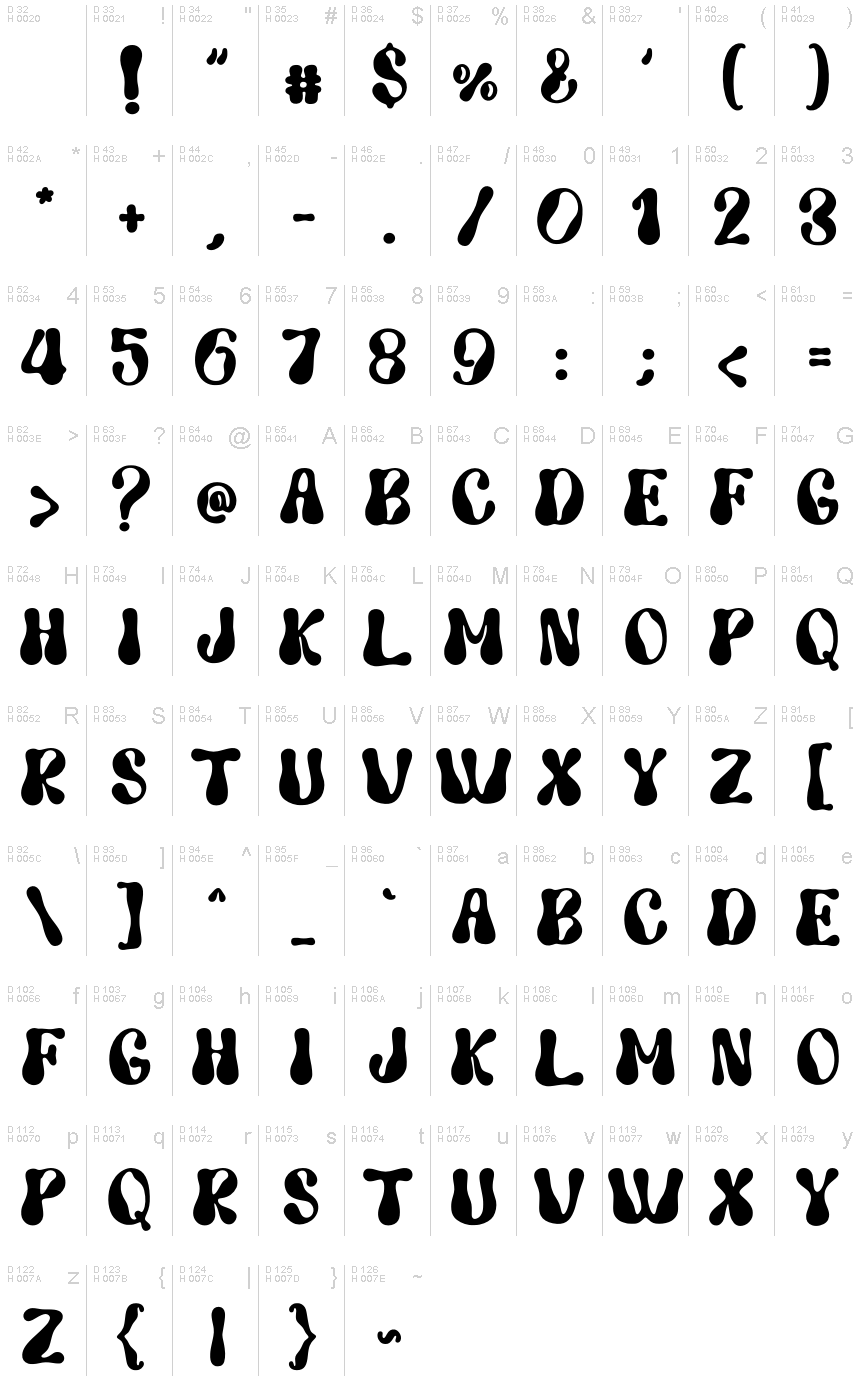
Grandma House Sans_DEMO
Grandma House Sans font, designed by Makashi of MaqsumKS, exudes a delightful groovy charm with its bold display style. The dynamic and playful curves capture attention effortlessly, making it perfect for vibrant and lively projects. Its retro aesthetic recalls a sense of nostalgia while remaining fresh and modern.
Whether you're designing for events or playful branding campaigns, this font will elevate your creative work with its distinctive style and captivating energy.